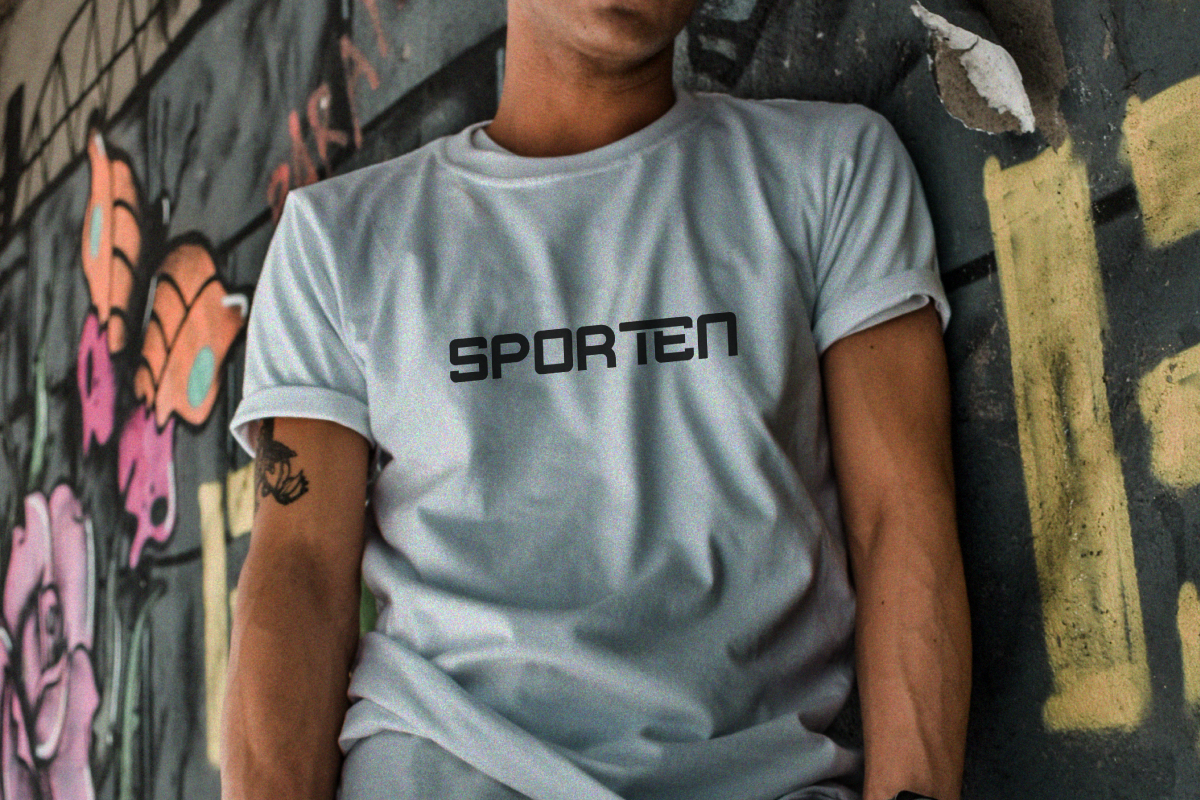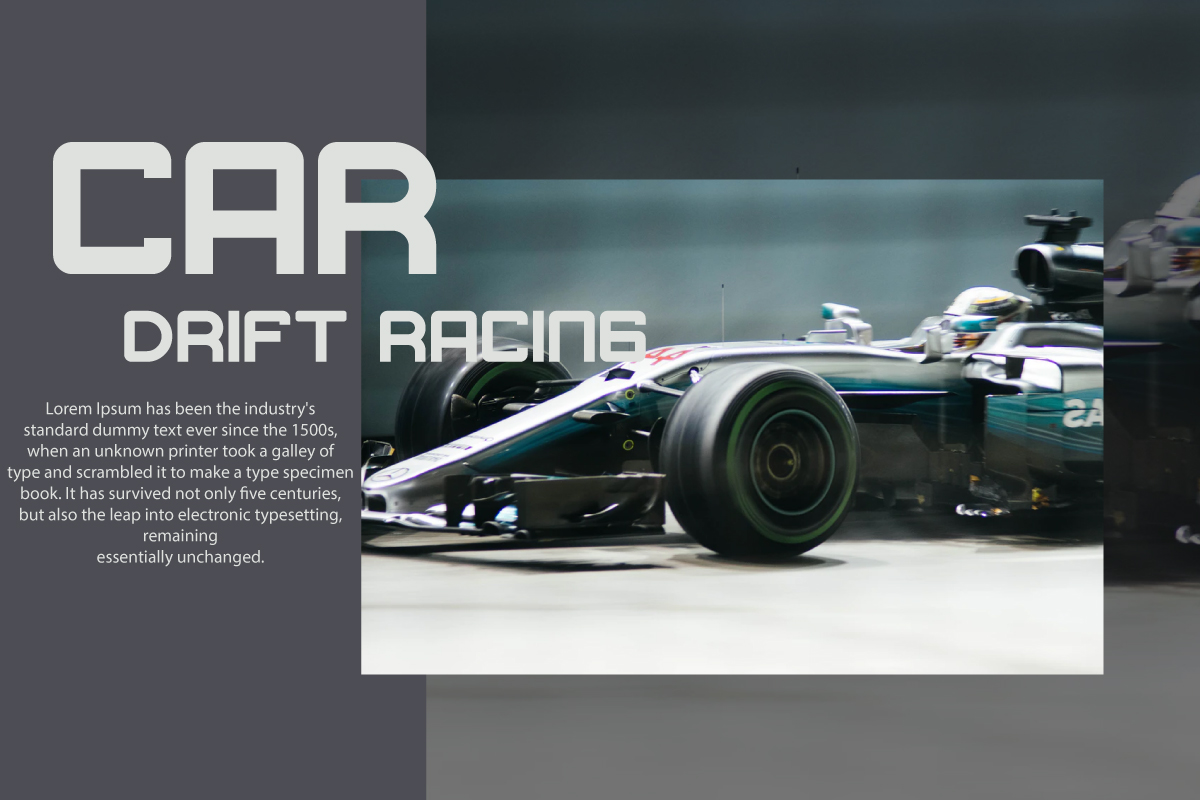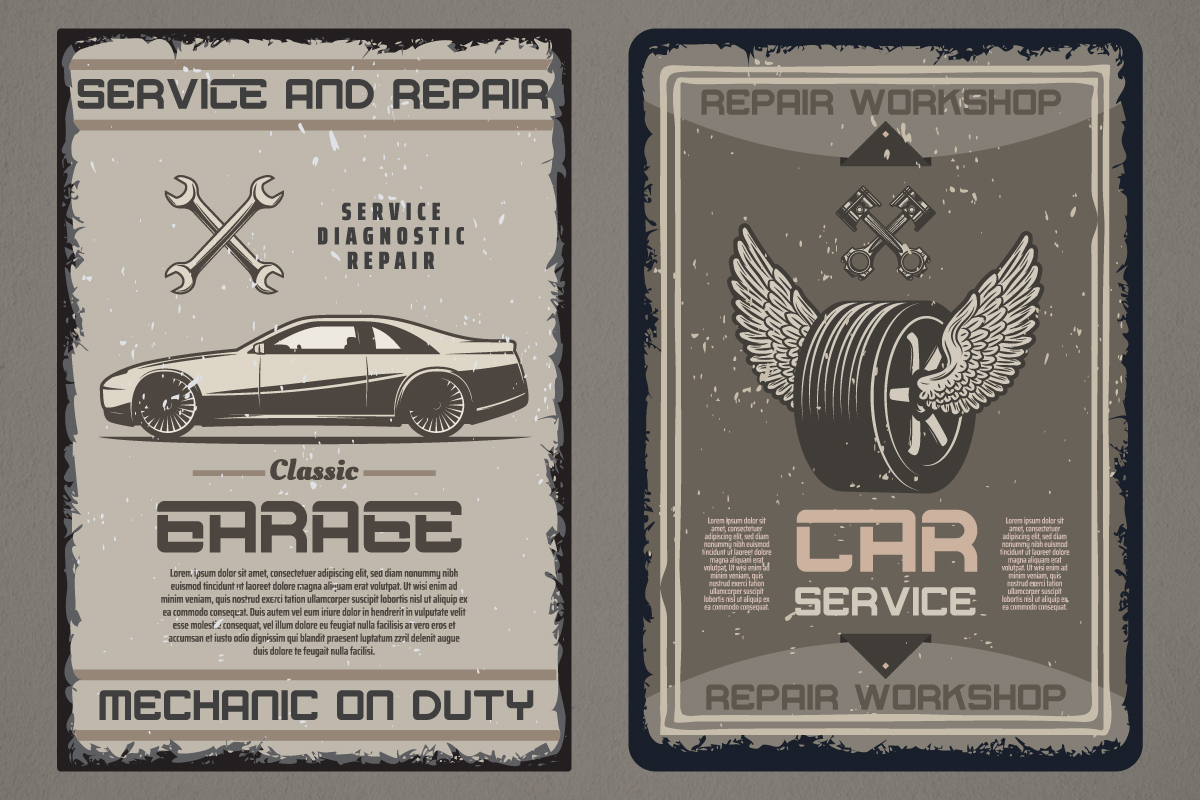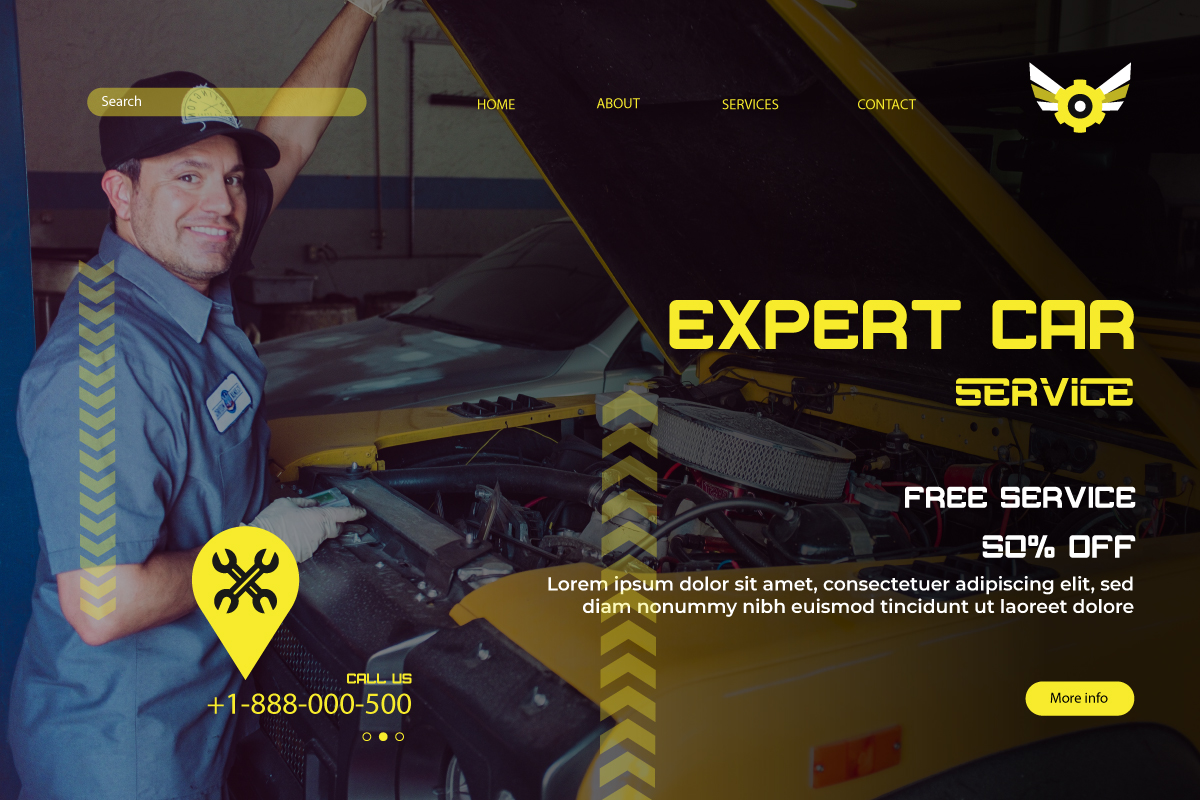
Motocars Font
Motocars Display Font
This is a display font family with race and sport style. The font has some characteristic which are modern, techno, strong, masculine, sporty etc. It will be cool for logo, brandings, headlines, signage etc. Motocars Font come with some ligatures like the “tr” , “sa”, etc, the ligatures will make the font stand out and really stunning unique. The font will be awesome for many industries including : racing, sports, techno, festival, games, movies etc